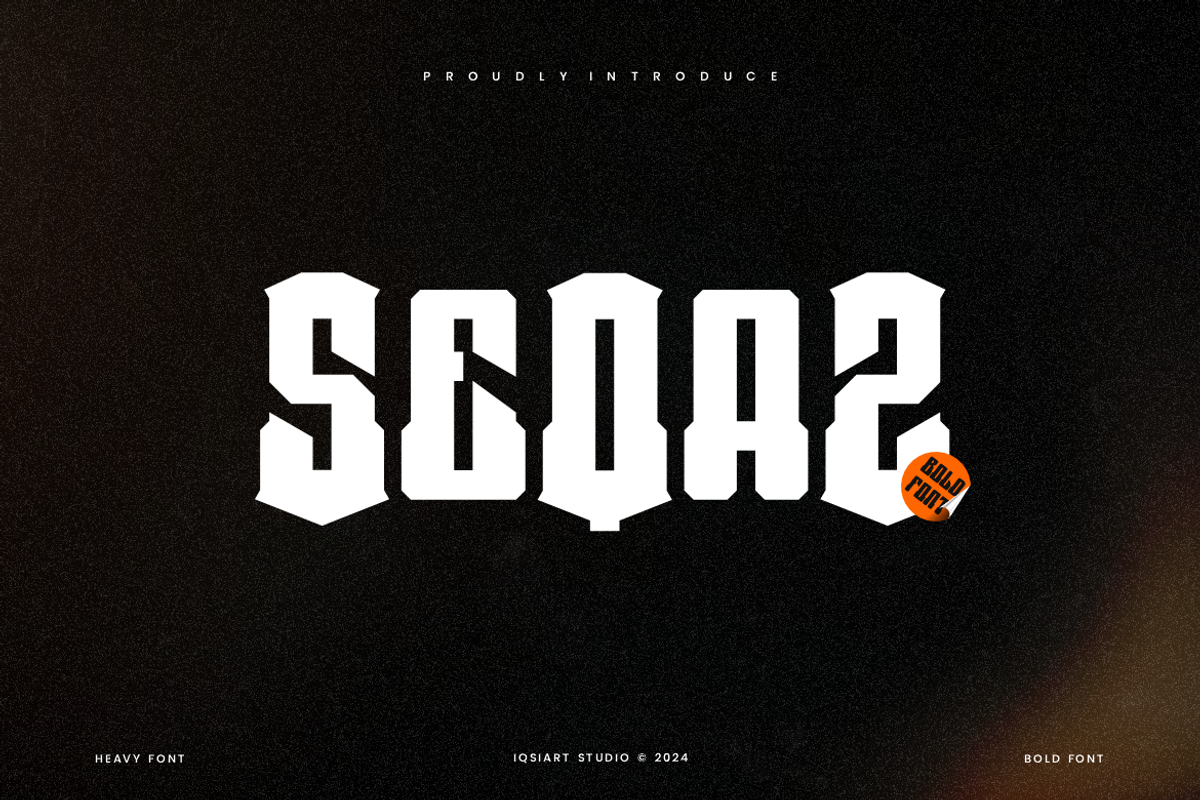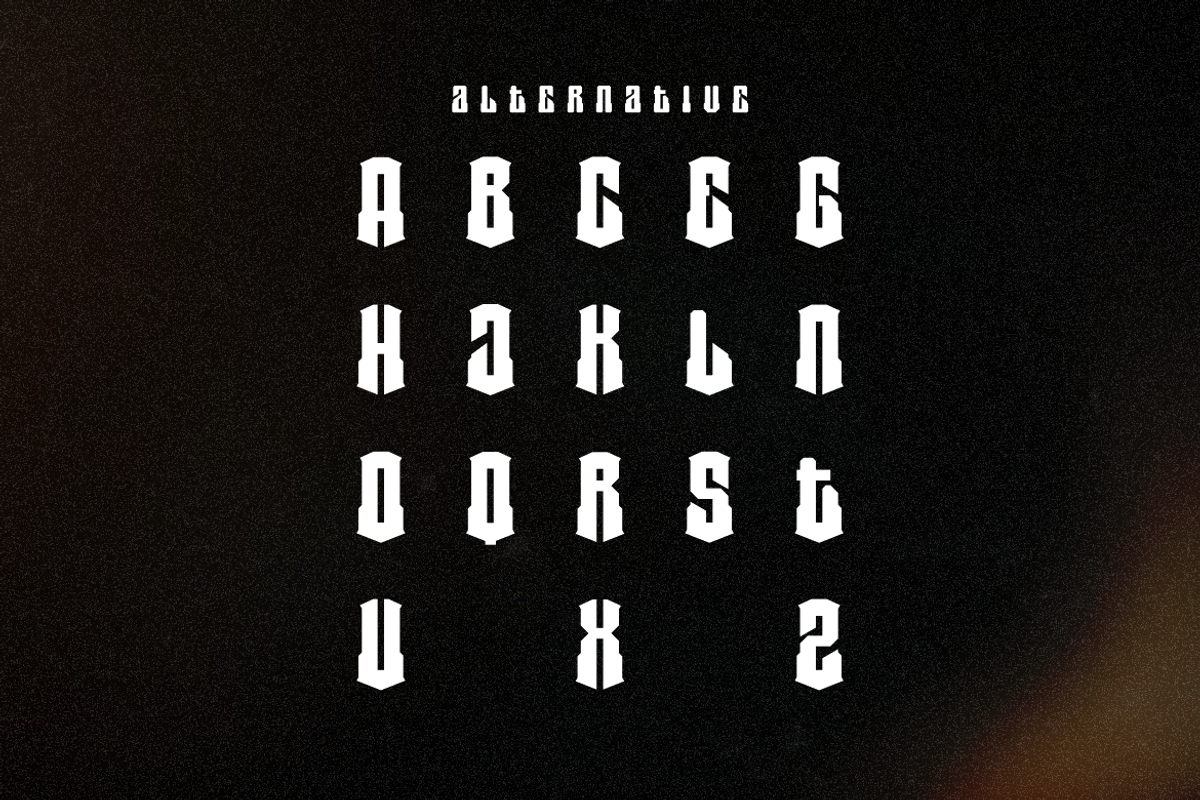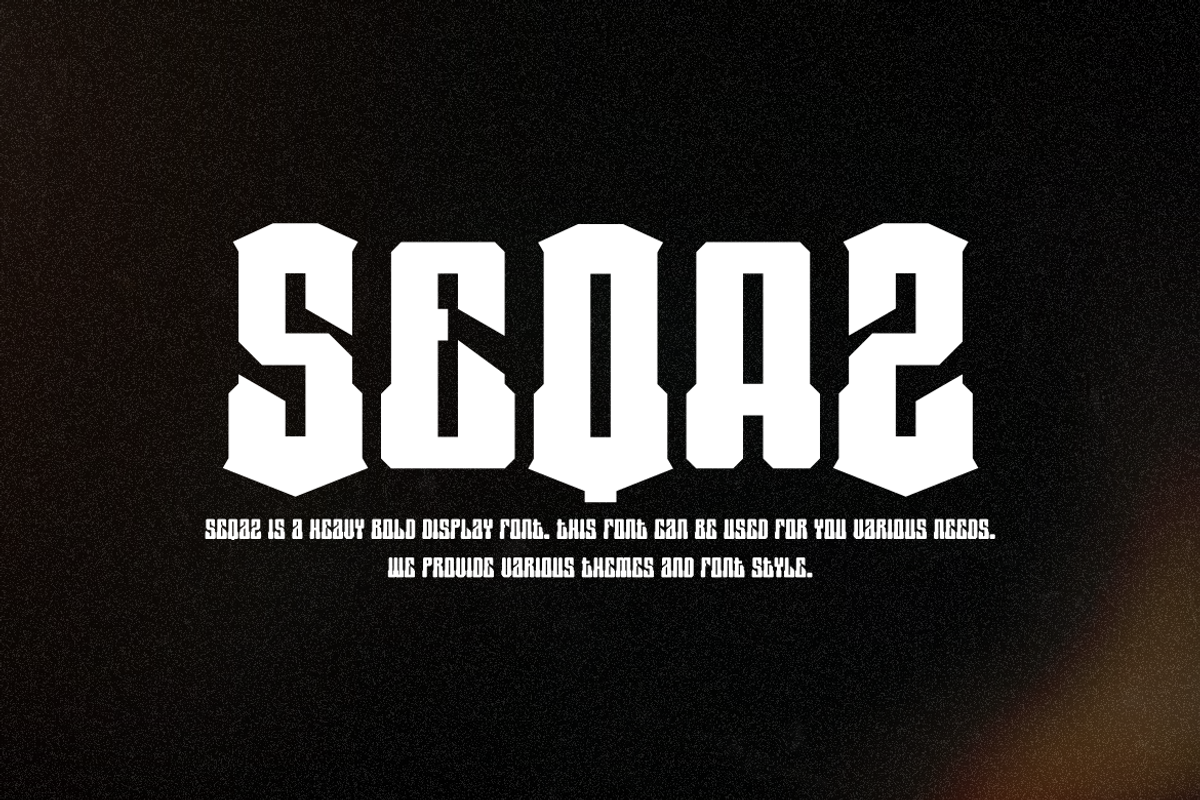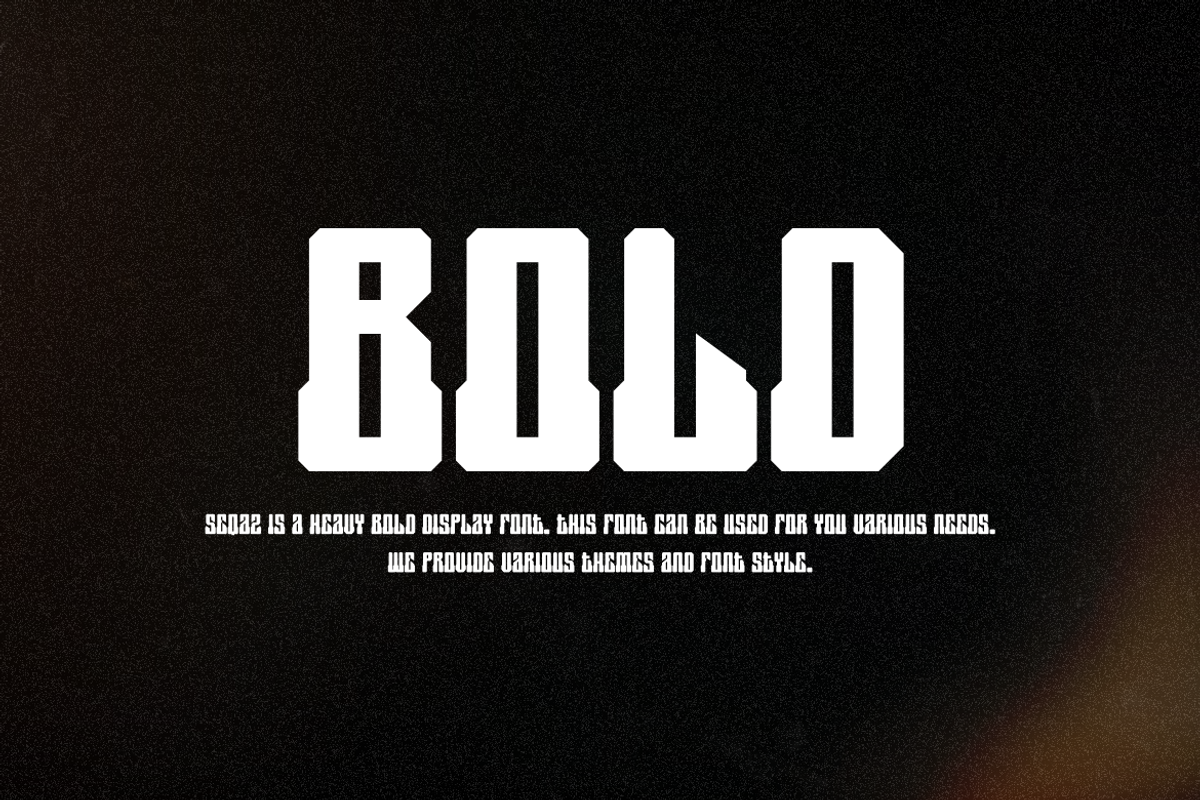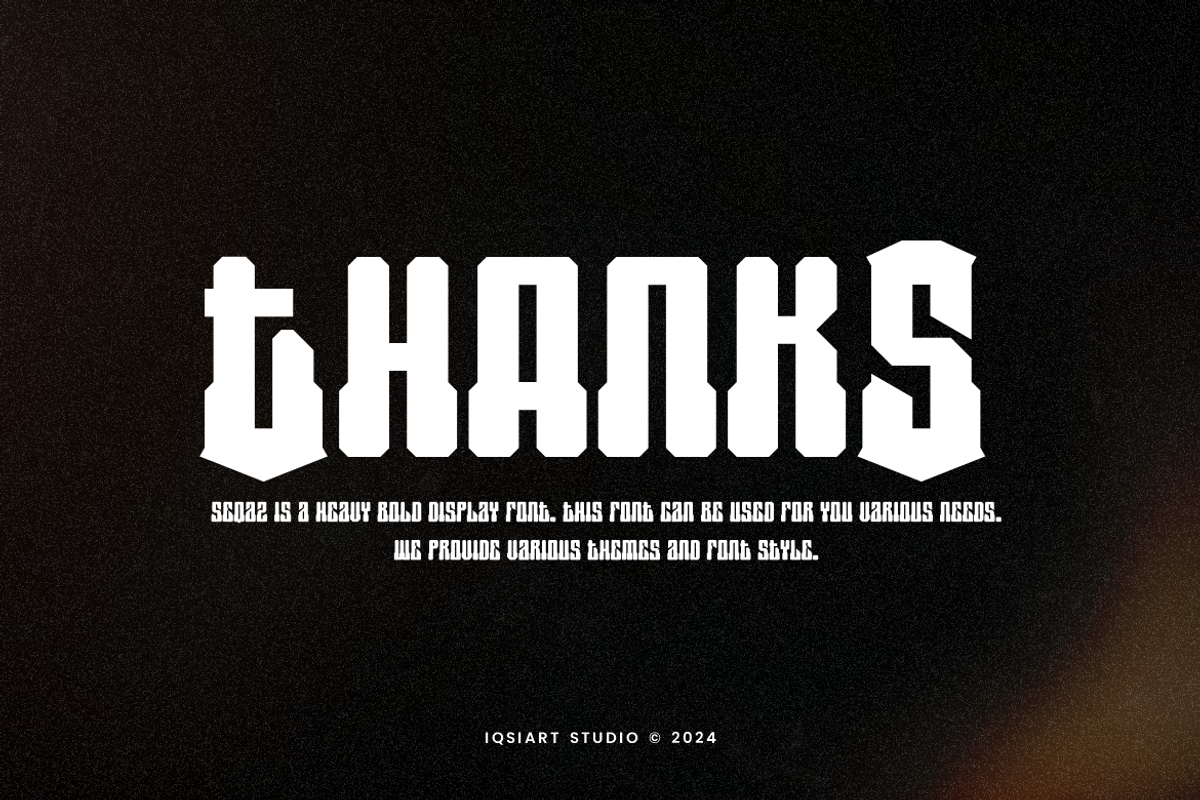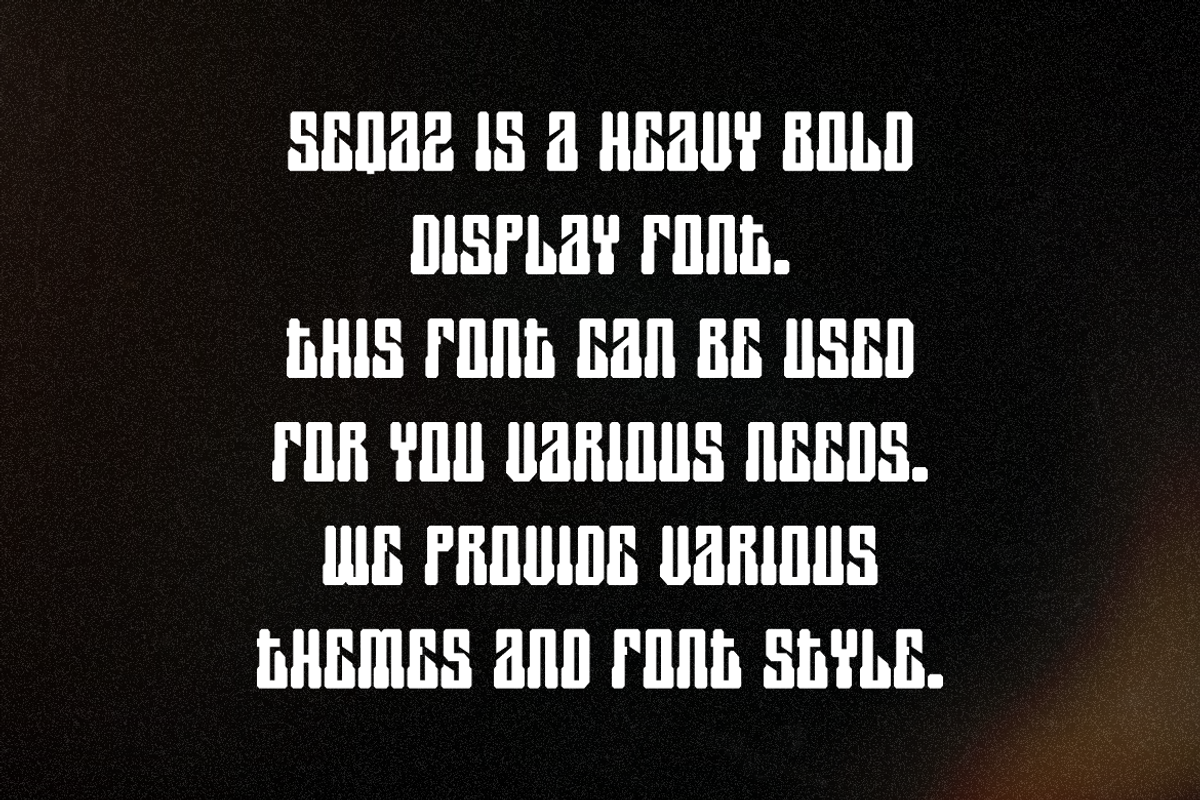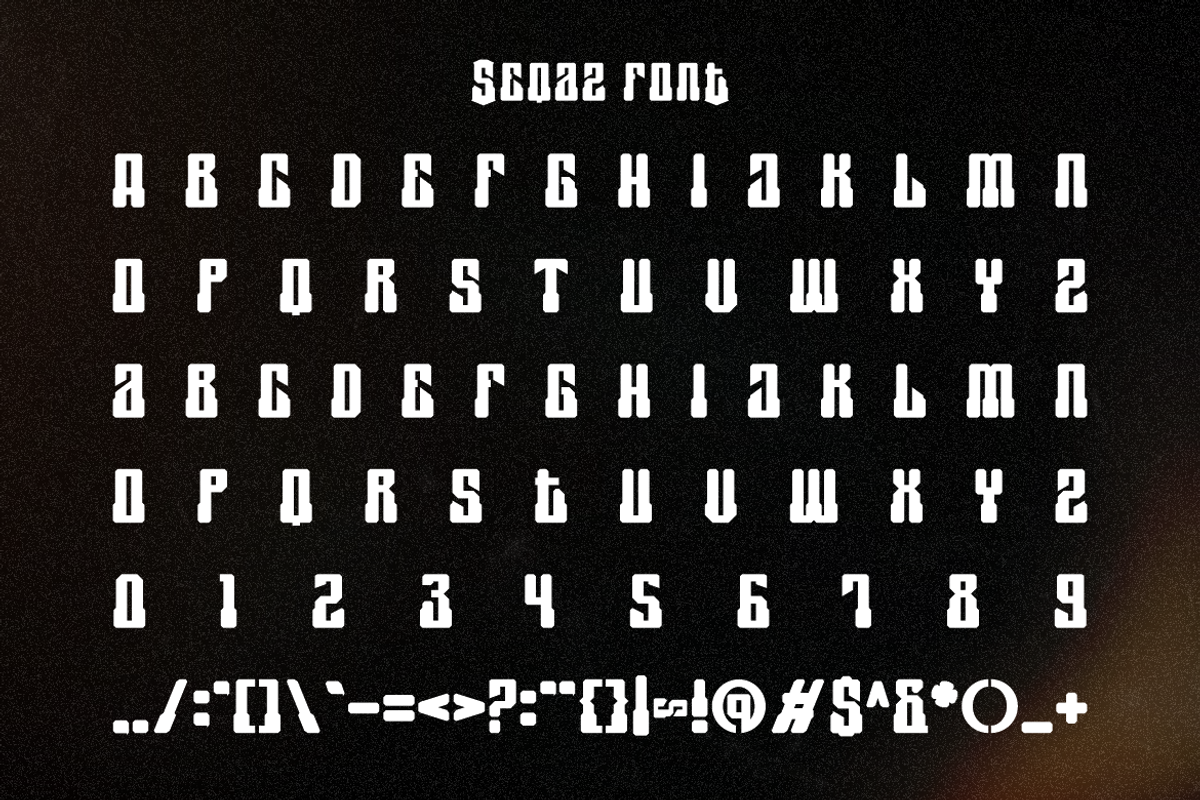
Seqaz - Heavy Bold Font
Seqaz Font is a best and authentic display font. This font can be used for your various needs. We provide various themes and font styles. visit our profile to get a wide variety of themes and different font styles you need.